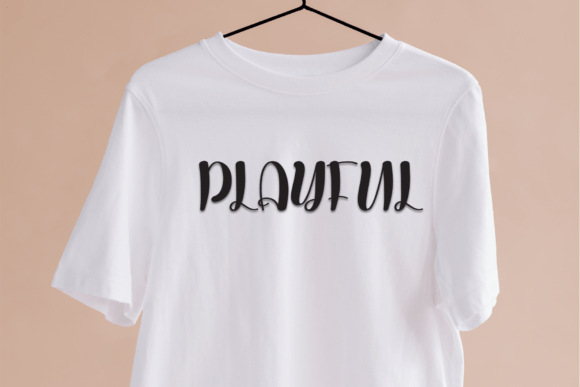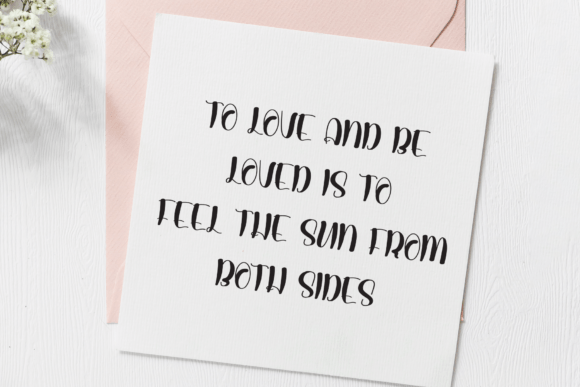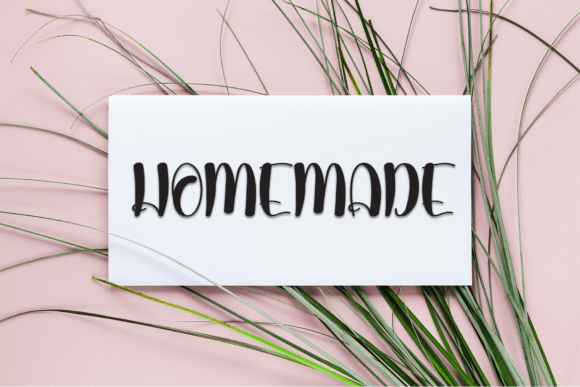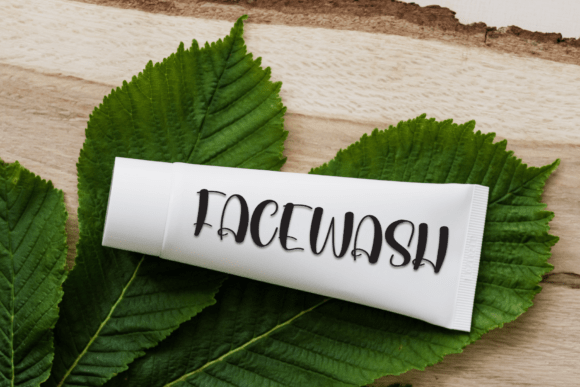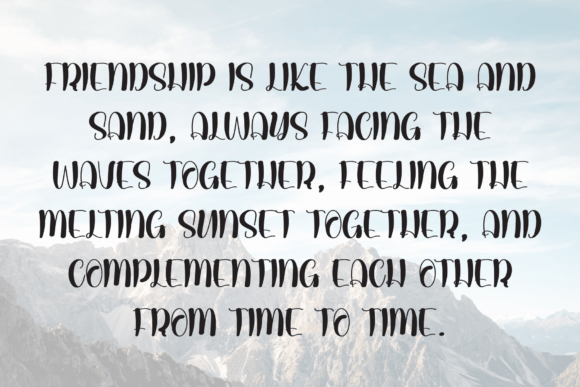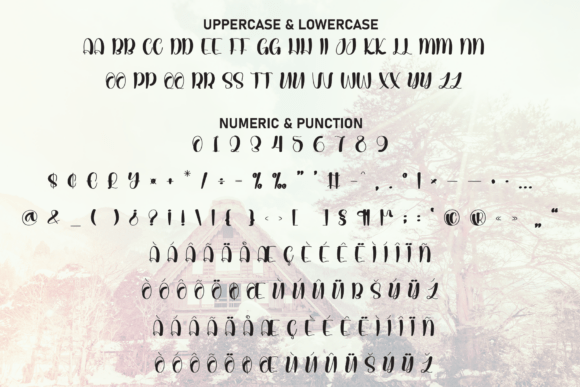
The Perfect Blend of Modern Simplicity and Playful Charm: Creative Farmhouse Font
I’ll never forget the moment I stumbled upon the Creative Farmhouse font. I was working on a branding project for a local bakery, and I was struggling to find the right font that captured the warm, inviting atmosphere of their cozy shop. The client wanted something that felt modern, yet approachable; clean, yet playful. After hours of scouring through font libraries, I finally stumbled upon Creative Farmhouse, and it was love at first sight! 💕
This casual display font has been a game-changer for my design projects, and I’m excited to share its charm with you. In this article, we’ll dive into the world of Creative Farmhouse, exploring its features, uses, and everything in between.
- ✅ Clean shapes and soft edges that give it a friendly, approachable vibe
- ✅ Well-balanced letterforms that ensure clarity and readability
- ✅ Versatile character that works well for a variety of design projects, from posters to social media graphics
- ✅ Easy to pair with other fonts, thanks to its neutral yet distinctive style
- ⚠️ Limited use of OpenType features, which might be a drawback for some designers
- ⚠️ Some users might find the font a tad too casual for very formal projects
The Story Behind Creative Farmhouse
While the true story behind Creative Farmhouse remains a mystery, it’s easy to imagine a designer who wanted to capture the essence of rural charm in a modern, urban context. Perhaps they drew inspiration from vintage signs, rustic landscapes, or cozy coffee shops. Whatever the inspiration, the result is a font that’s both nostalgic and forward-thinking.
Q: What type of projects is Creative Farmhouse best suited for?
A: Creative Farmhouse is versatile and can be used for a wide range of projects, including posters, branding, packaging, social media graphics, and more.
Q: Is Creative Farmhouse a script font?
A: No, Creative Farmhouse is a display font with a sans-serif style. It has a clean, modern look with a playful twist.